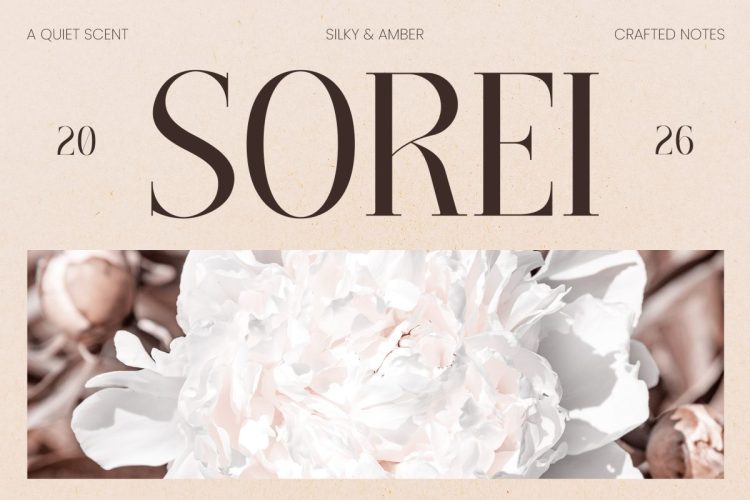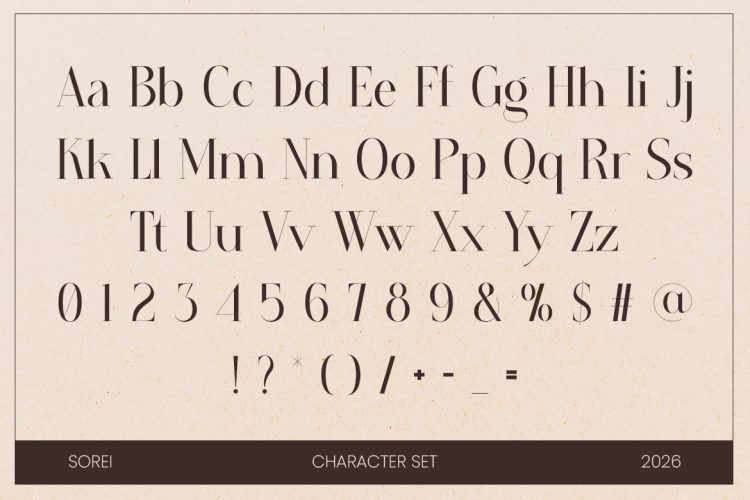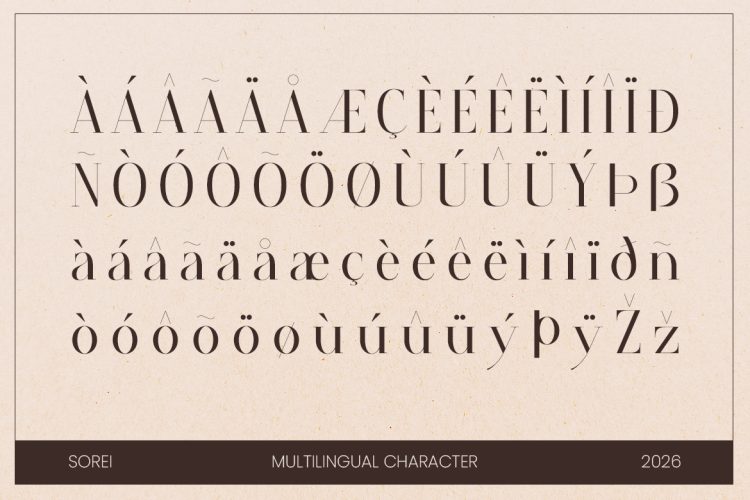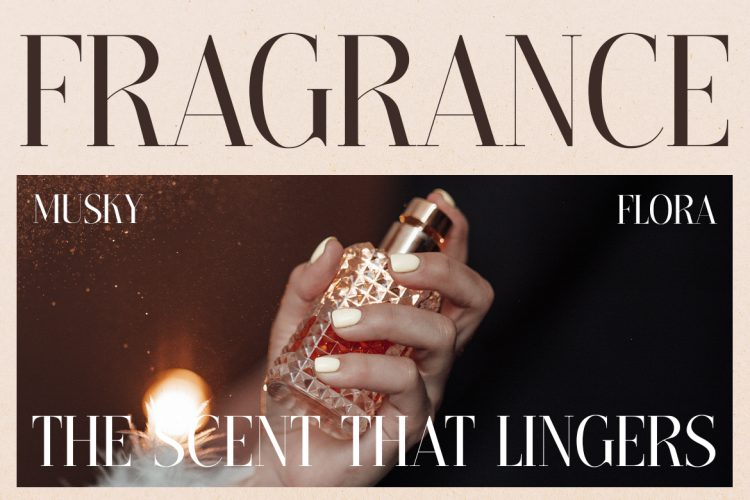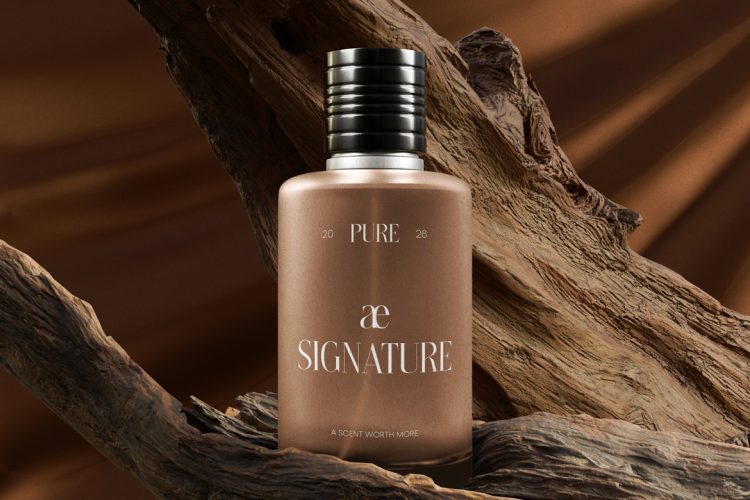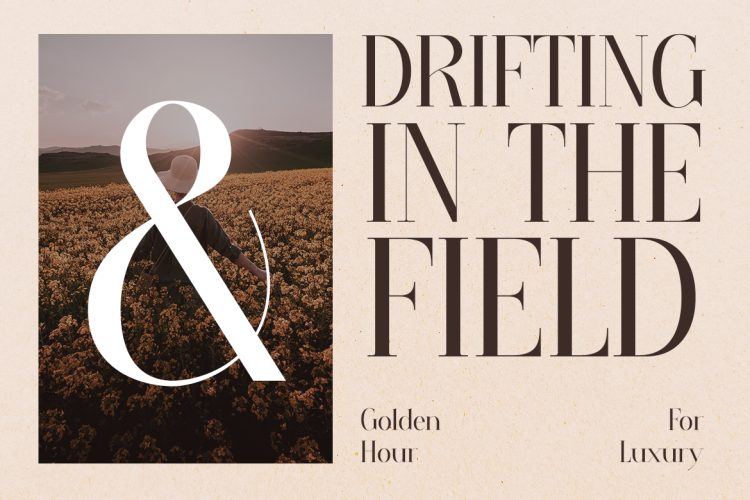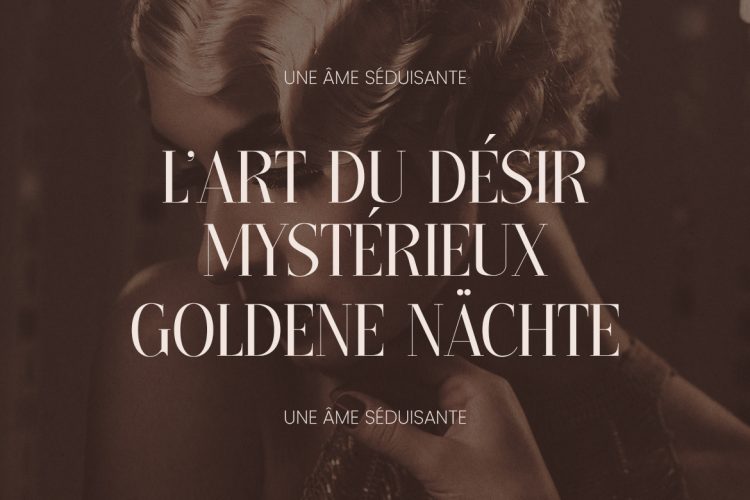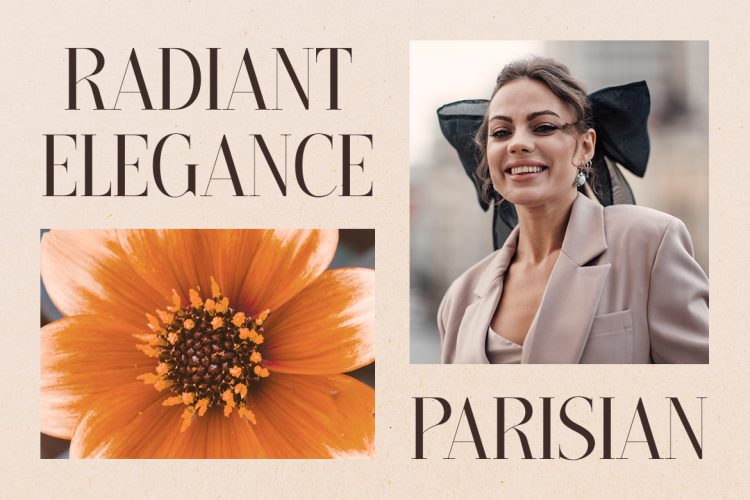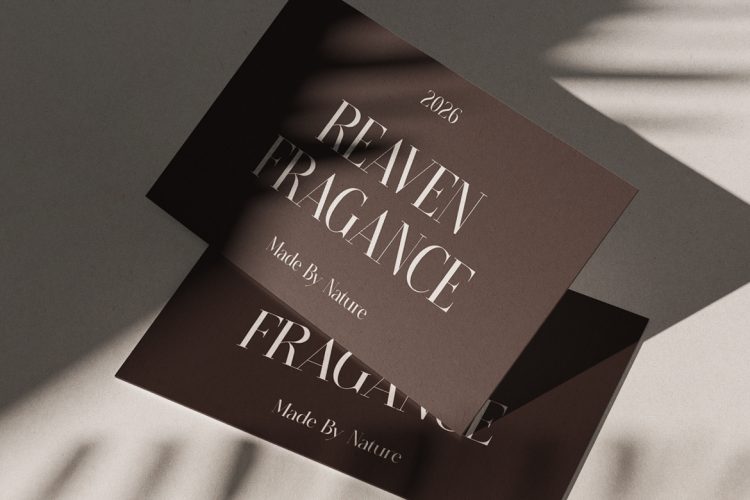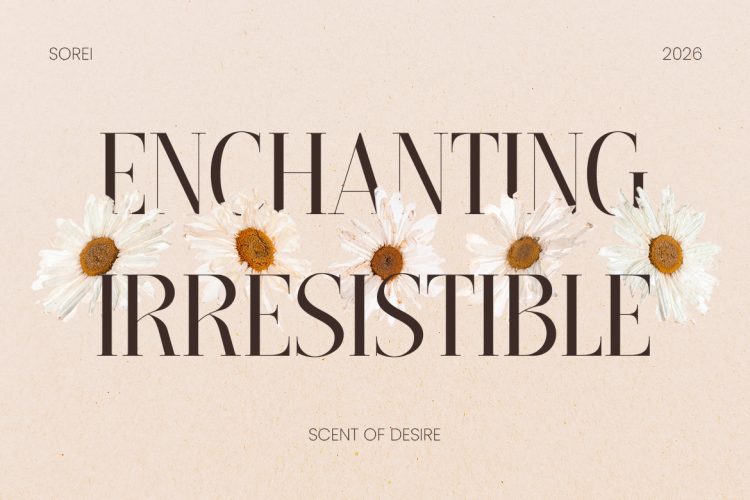
SOREI โ Chic, Elegant & Luxury Serif Font
Instagram Font SOREI is a graceful serif font with a chic and luxurious aesthetic. At first glance, its elegant letterforms create a refined editorial feel. Moreover, the high-contrast strokes and slender shapes give every word a sophisticated touch. Meanwhile, its balanced proportions keep the design clean and easy to style. As a result, SOREI adds instant elegance to headlines, branding, and social media content. In addition, it includes Multilingual Support for 67 Languages, making it suitable for creative projects worldwide.
Whether you are creating an Instagram post or launching a beauty brand, SOREI fits beautifully. Furthermore, it works perfectly for fashion branding, perfume packaging, skincare, magazines, logos, invitations, wedding stationery, product labels, posters, and editorial designs. Additionally, photographers, influencers, boutiques, beauty studios, designers, and lifestyle brands can use its sophisticated personality. Because of its elegant structure, SOREI looks especially stylish in luxury headlines and minimal layouts.